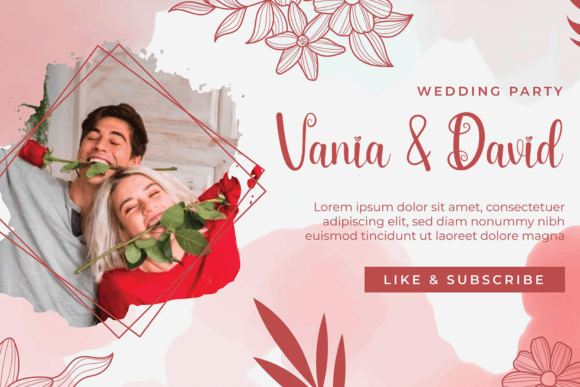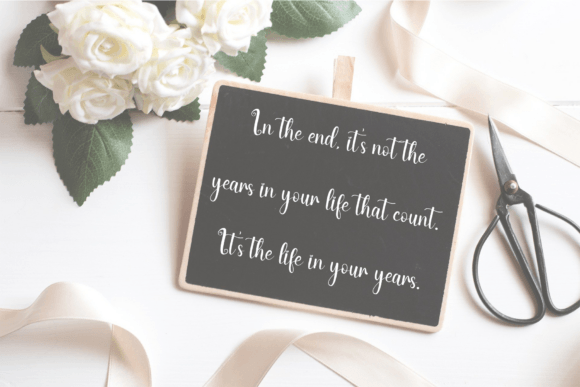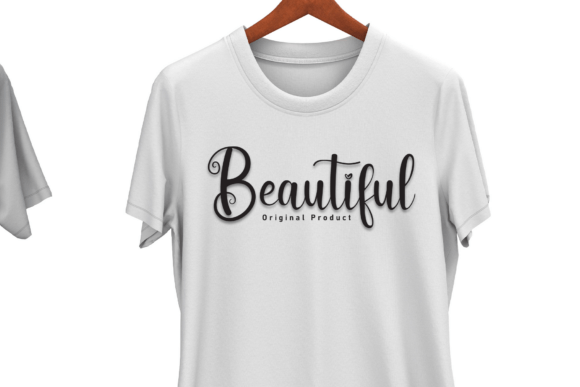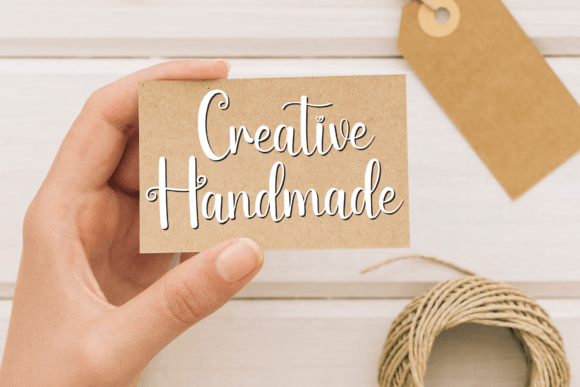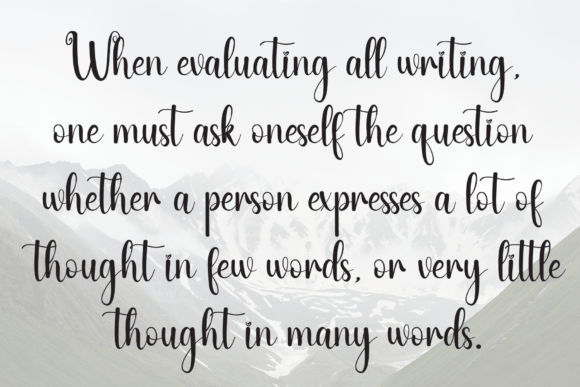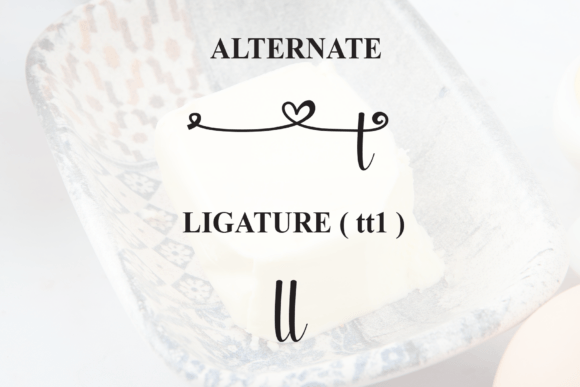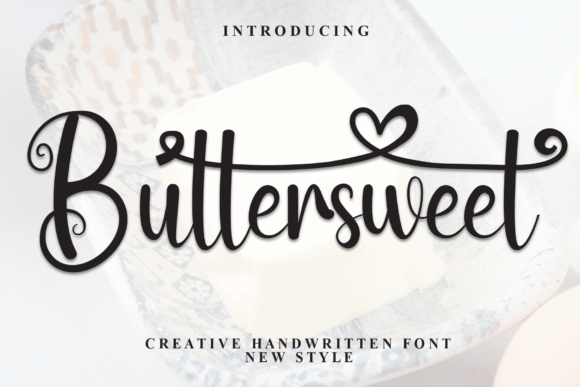
Discover the Secret to Adding Whimsy to Your Designs
Have you ever stared at a blank page, struggling to find the perfect words to express your love and gratitude to a dear friend or family member? That’s where the magic of Buttersweet Font comes in – a charming handwritten display font that exudes warmth and playfulness, making it the perfect choice for crafting captivating wedding invitations, heartfelt greeting cards, or any design project yearning for an infusion of whimsy and joy.
As a designer, you know the importance of selecting the right font to elevate your work and convey your message. Buttersweet Font is a valuable addition to any design toolkit, offering a unique blend of lighthearted charm and delightful elegance that will propel your designs into a realm of cheer and enchantment. Whether you’re working on a personal or professional project, this font is sure to bring a smile to your face and a touch of personality to your work.
- Unique Characteristics: Elegant, cursive script with a touch of whimsy and romance
- Font Weight: Light, Regular, Bold, Black, and Outline weights for added versatility
Buttersweet Font Review
First of all, I want to say that I really like the Buttersweet Font. It’s a unique and playful font that’s perfect for projects that need a bit of whimsy. ✨ The font has a very feminine touch, making it ideal for feminine or children’s projects.
The Buttersweet Font is also very versatile and can be used for a wide range of projects, from invitations and greeting cards to logos and branding materials. It’s a great font for anyone who wants to add a touch of personality to their design.
- Unique and playful design ✨
- Feminine and whimsical touch ✨
- Highly versatile ✨
- Perfect for a wide range of projects ✨
- May not be suitable for formal or professional projects ⚠️
- Can be a bit difficult to read in small sizes ⚠️
- Not ideal for projects that require a bold or strong font ⚠️
Overall, I think the Buttersweet Font is a great addition to any designer’s toolkit. While it may have some limitations, its unique design and versatility make it a great choice for the right projects. I would definitely recommend it to designers who are looking for a playful and feminine font.
Tips for Getting the Most Out of Buttersweet Font
Use the Buttersweet font for creative and playful designs, such as invitations, social media graphics, and children’s book illustrations. To get the most out of the font, experiment with different font sizes, colors, and styles to create a unique look.
The Buttersweet font is ideal for:
- Social media graphics
- Invitations and party decorations
- Food and drink branding
Alternatives to Buttersweet Font
Lobster Font is a popular script font known for its elegant and sophisticated look. It is ideal for use in headings, titles, and invitations. Lobster Font is similar to Buttersweet Font in its cursive style, but it has a more refined and luxurious feel.
Copperplate Font
Copperplate Font is a classic script font that exudes elegance and sophistication. It is perfect for use in formal invitations, wedding stationery, and high-end branding. Copperplate Font is more formal and refined compared to Buttersweet Font, making it suitable for more formal occasions.
Great Vibes Font is a beautiful script font that is perfect for use in creative and artistic projects. It is ideal for headings, titles, and quotes. Great Vibes Font has a more relaxed and casual feel compared to Buttersweet Font, making it suitable for modern and trendy designs.
Playfair Display Font is a luxurious and elegant script font that is perfect for use in high-end branding, fashion, and luxury goods. It is ideal for headings, titles, and invitations. Playfair Display Font is more formal and refined compared to Buttersweet Font, making it suitable for high-end and luxurious designs.